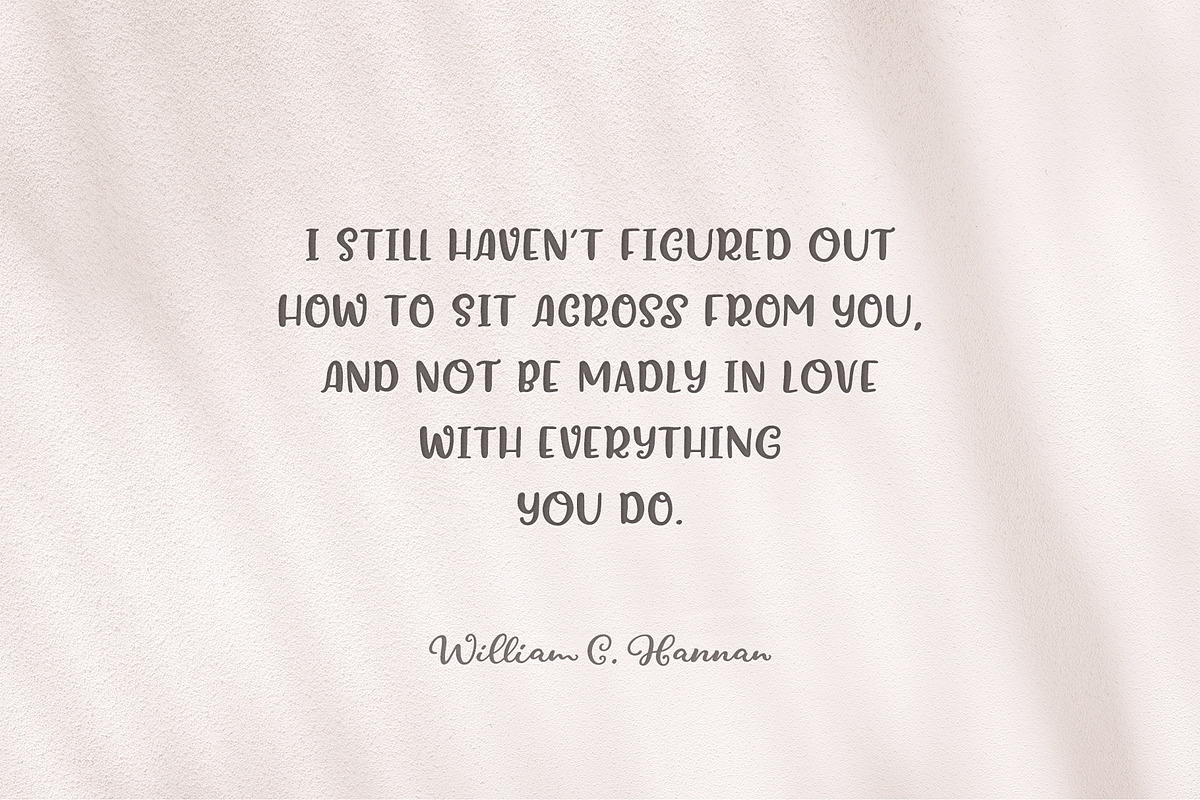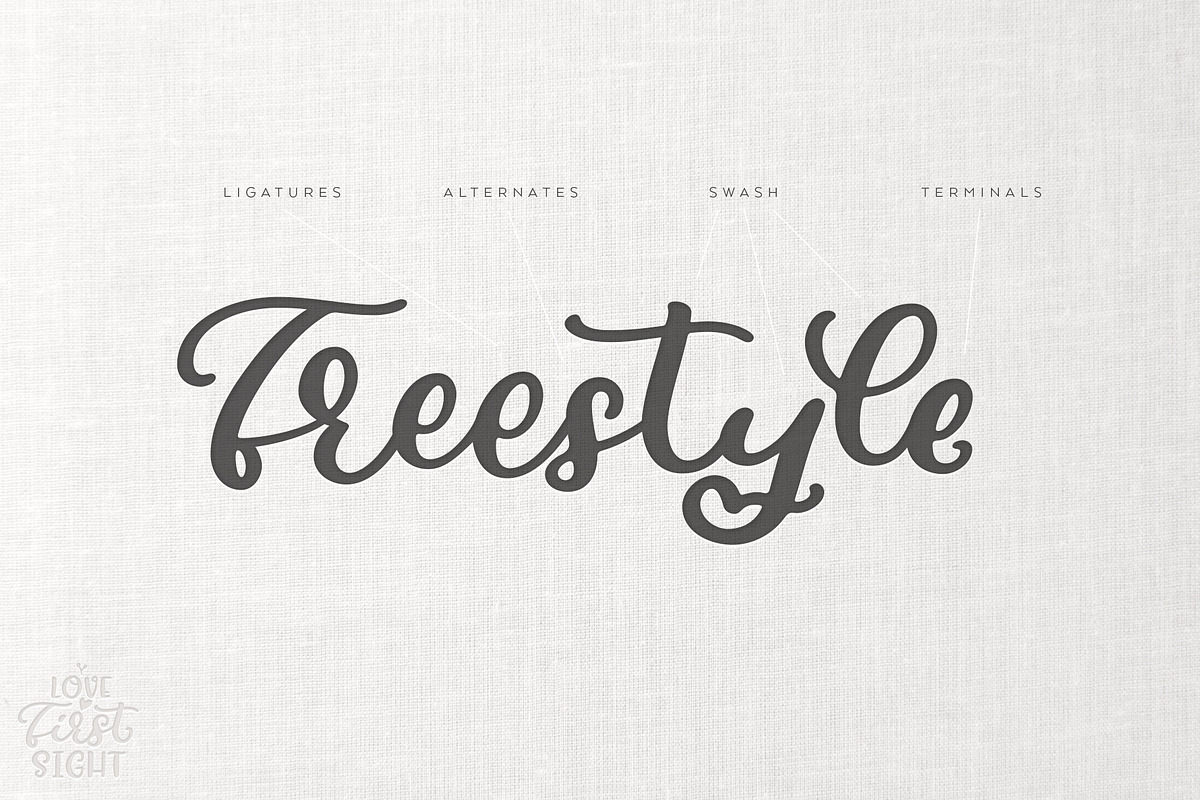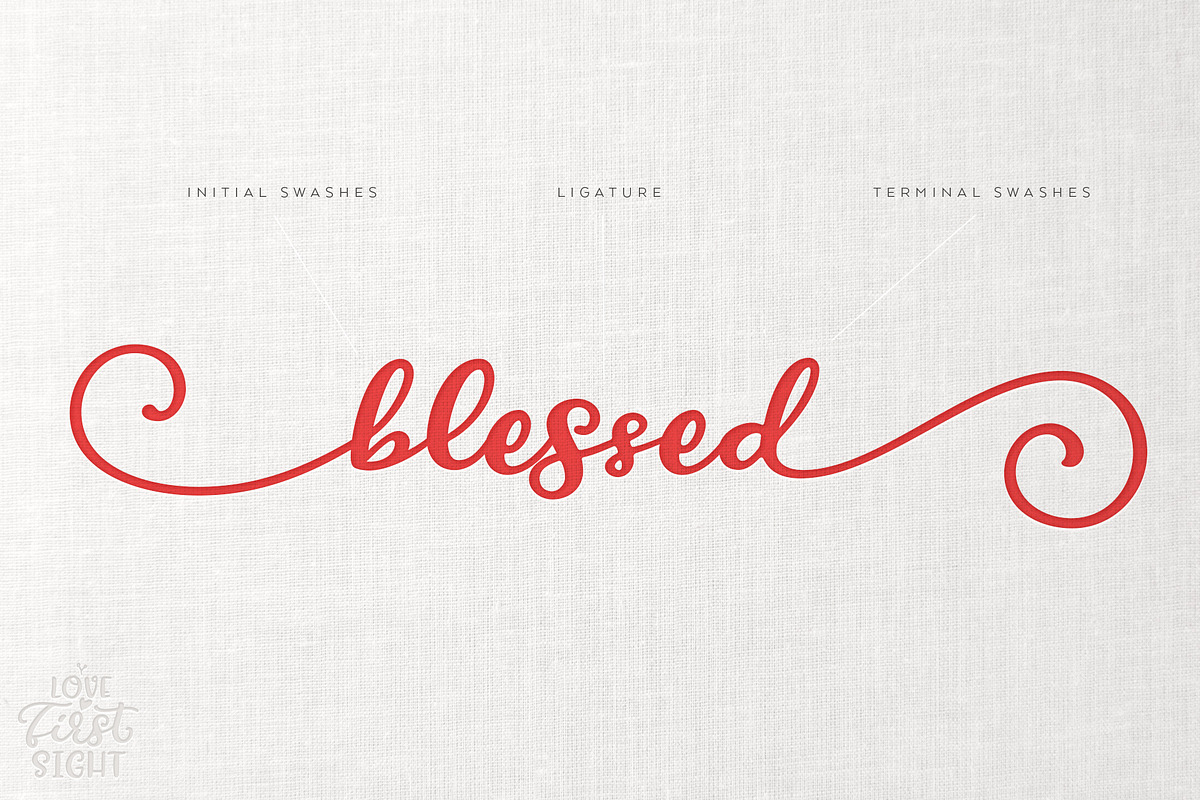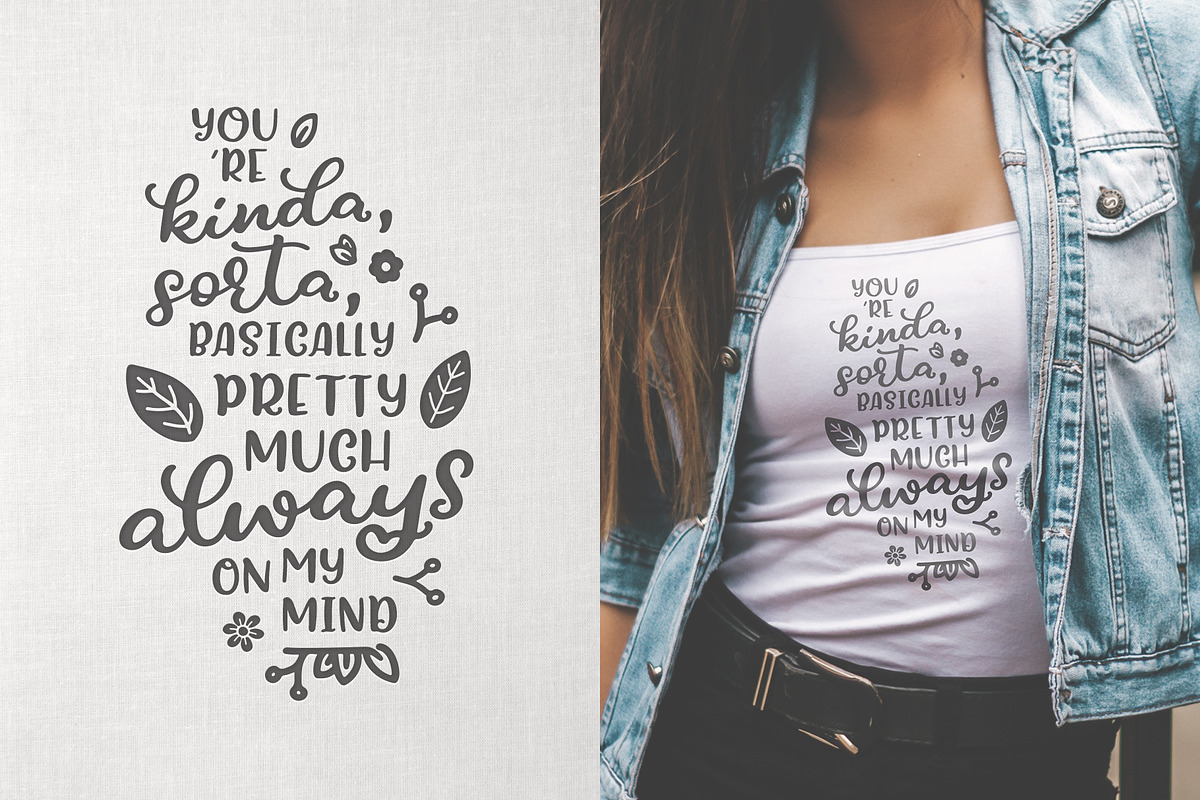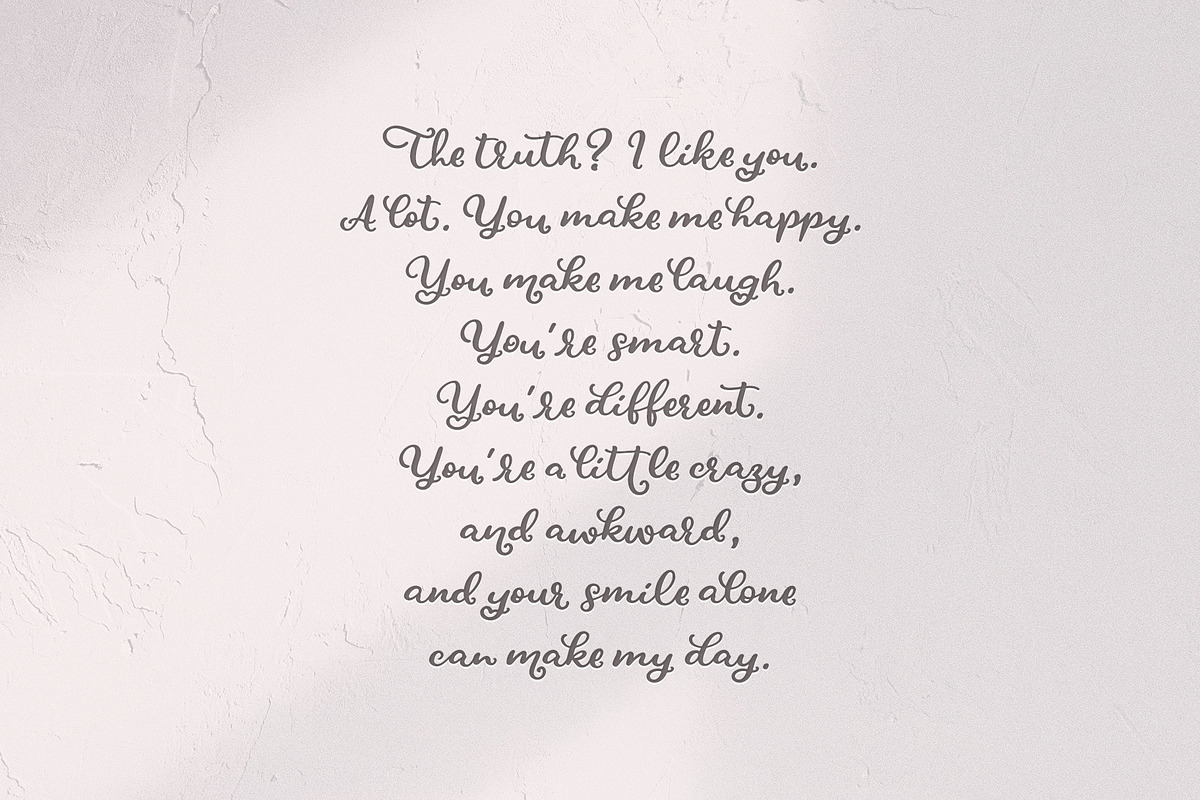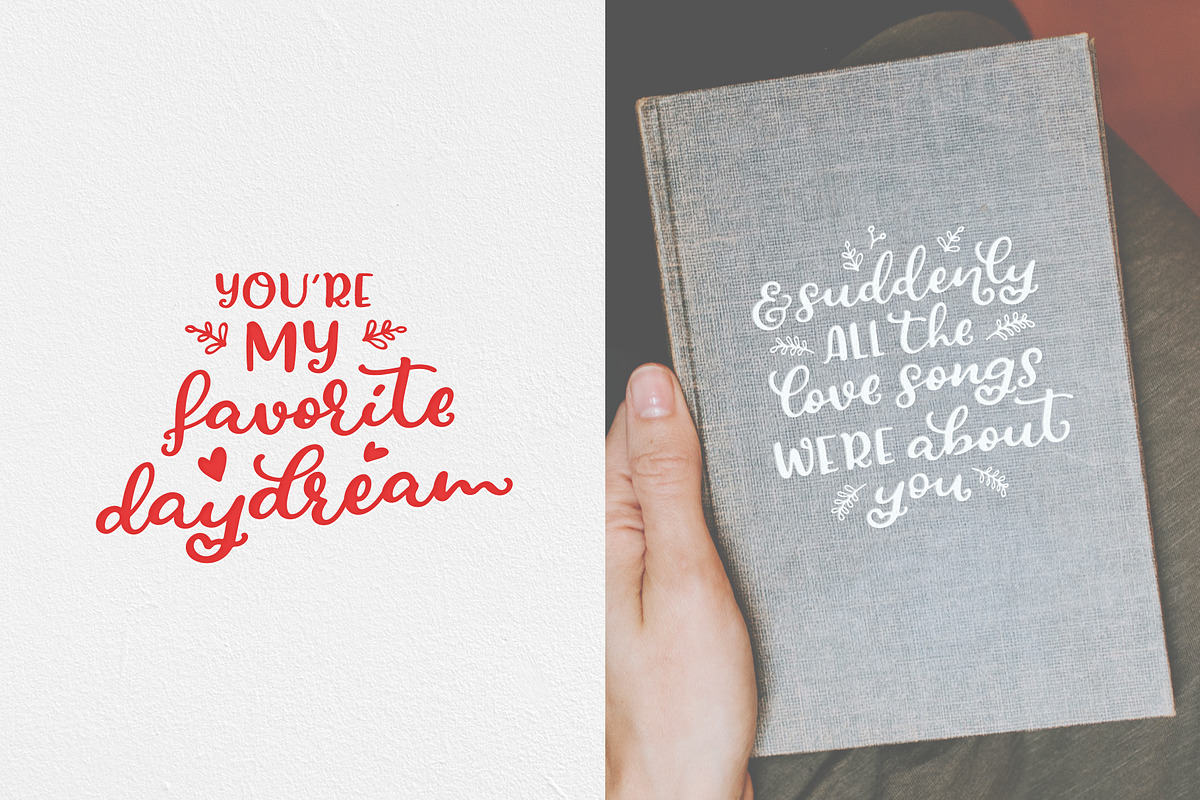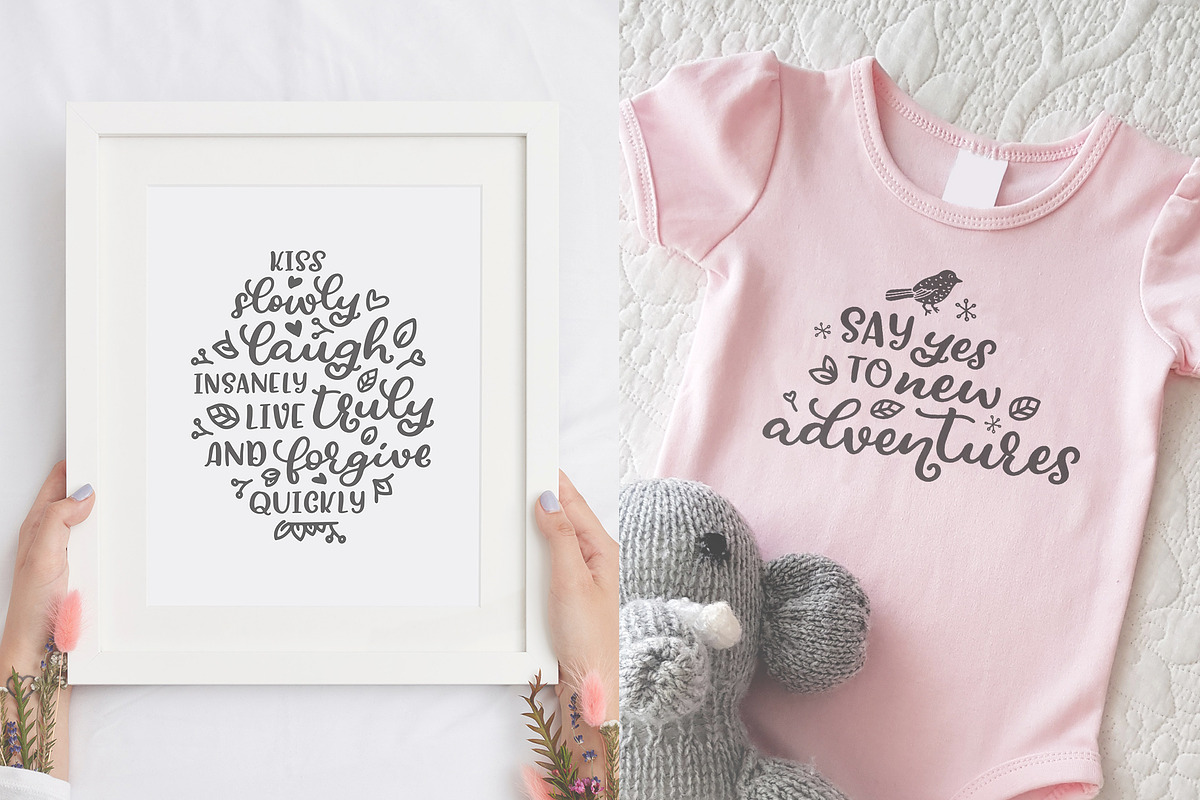
Love At First Sight Font Duo &Extras
Ideal for creating spectacular SVG cut files for product design, Love At First Sight is a family of 3 fonts:
A swirly script with lots of alternates and swashes, a fun sans serif that complements the script perfectly and a dingbat font packed with handy ornaments.
Love At First Sight Script has a full set of alternate letters, swash letters and front / end swashes that are also made available as separate fonts.
Love At First Sight Sans is a perfect match to the script with its curvy outlines.
Love At First Sight Flourishes is a great resource for creating eye-catching, well composed typographic designs.
The download also includes Love At First Sight Alternates, Love At First Sight Swash Alternates and Love At First Sight Decorative which are the extra characters of the Script font, made into separate fonts for easier access.
Upper Case and Lower Case Letters
Upper Case and Lower Case Alternate Letters
Initial and Terminal Swashes
Upper Case and Lower Case Letters
88 Unique Hand Drawn Ornaments